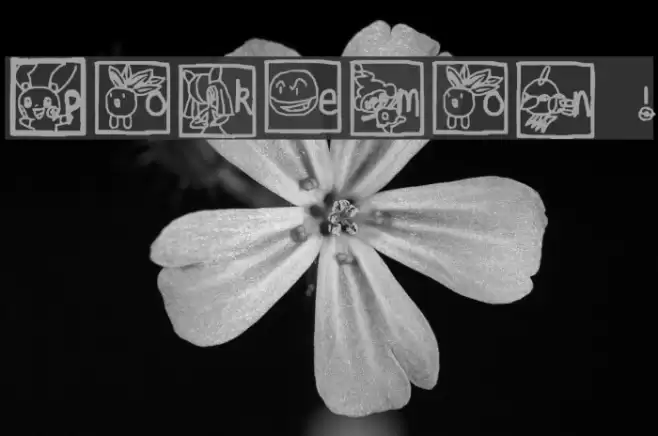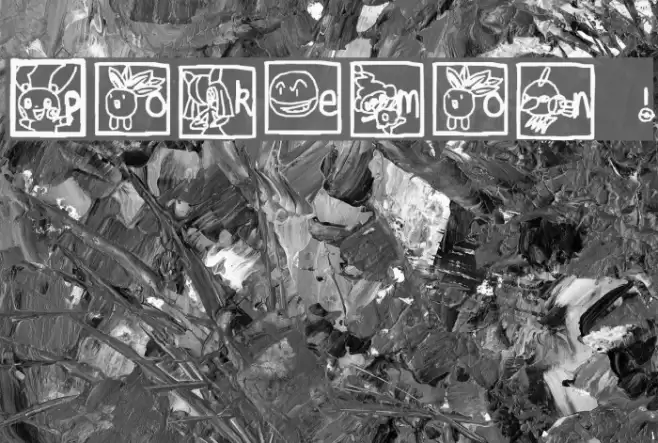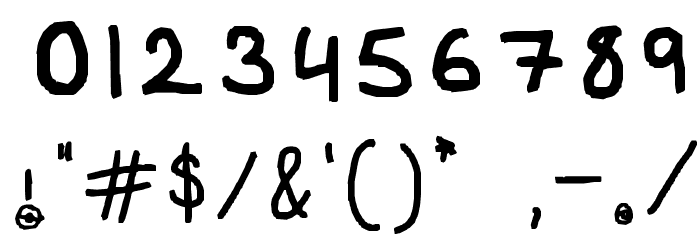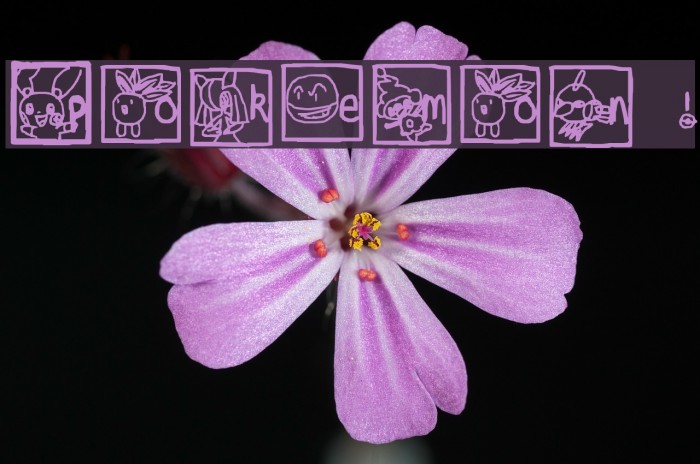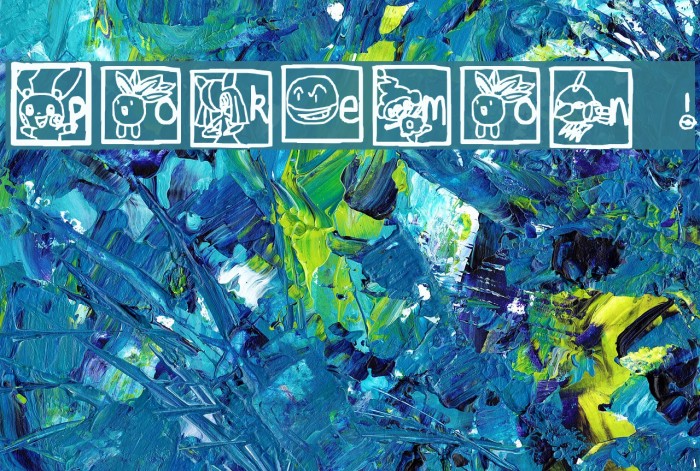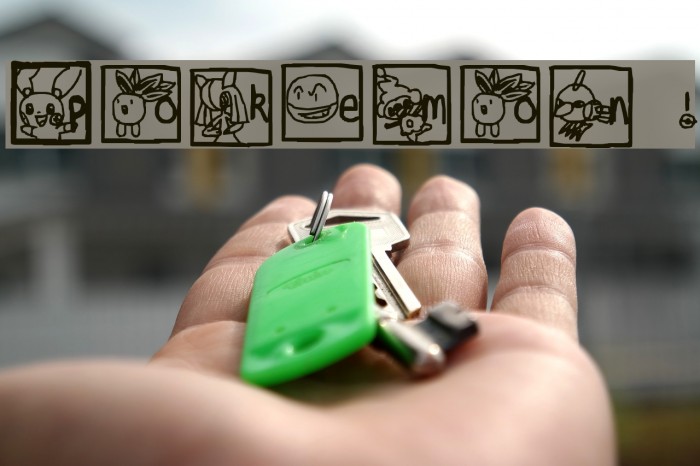
Pokemon ! Font
Pokemon ! Description
This is a playful and decorative font featuring iconic characters and symbols from a popular franchise. Each character is represented by a unique illustration, making it highly distinctive and thematic. The font is designed to evoke a sense of nostalgia and fun, appealing to fans and collectors. The numbers and special characters are stylized to match the whimsical theme, ensuring consistency throughout. This font is perfect for creative projects that aim to capture the essence of the beloved series, offering a unique way to incorporate familiar elements into design work.
A decorative font featuring iconic character illustrations from a beloved franchise from Uncategorized fonts.
- Proposed Projects: Ideal for themed party invitations, fan merchandise, posters, and creative digital content.
- Overall Style: Playful, Nostalgic, Thematic
- Use Case: Logos, Posters, Merchandise, Creative Projects